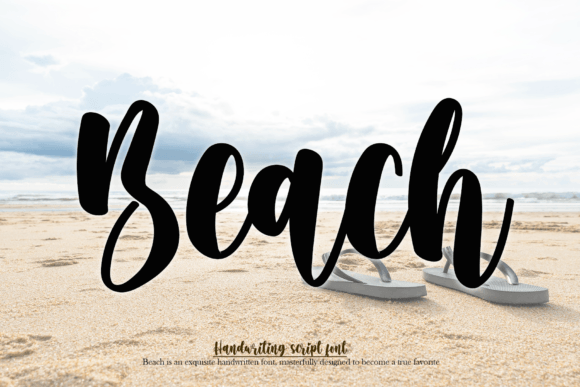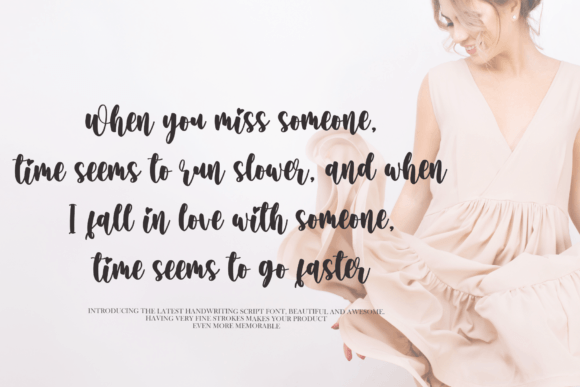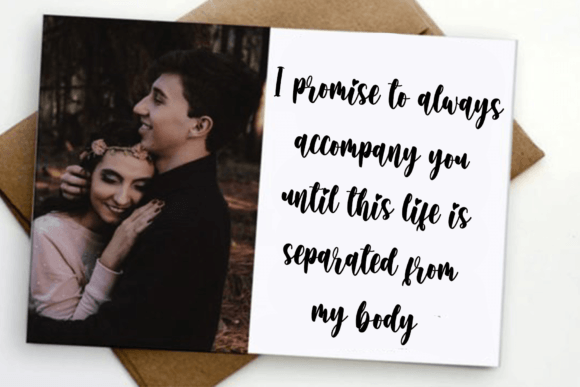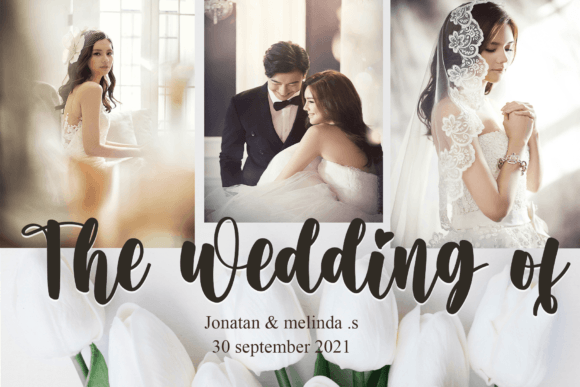
About the Beach Font
Explore the possibilities with Beach Font, a font that offers both beauty and functionality. Beach is a fancy handwritten font that will give you extra creative work. This font is suitable for logo design, social media, movie titles, and book titles. Make stunning work with Beach font.